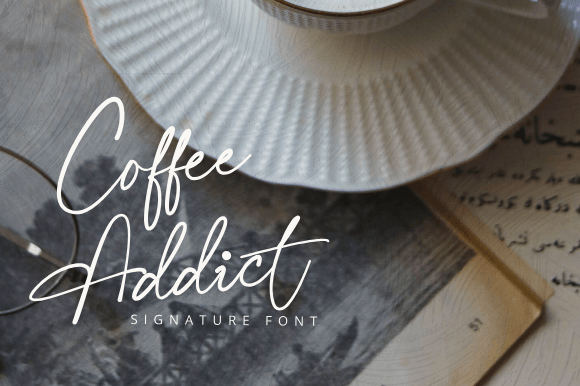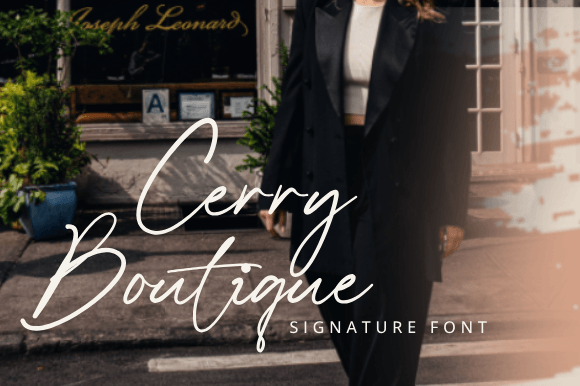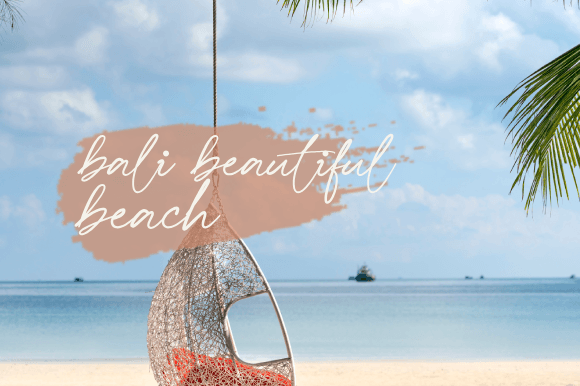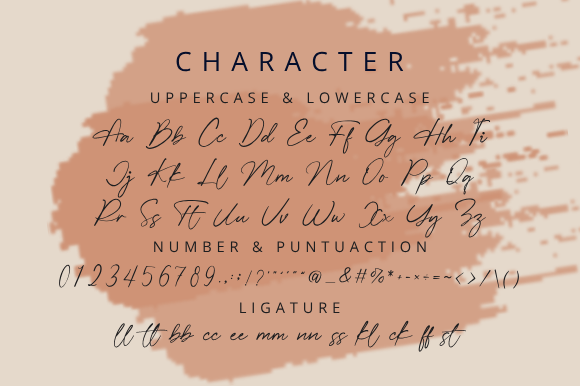
Have you ever stared at a blank canvas, unsure of where to start? The blank page, a blank slate, waiting for the perfect words to bring it to life. For designers, this moment is all too familiar. But what if you had the perfect font to set the tone for your next project? Enter the Brilliant Rose Font, a stunning combination of elegance and playfulness that’s sure to elevate your design game.
As a versatile and charming font, Brilliant Rose Font is perfect for a wide range of design projects, from formal invitations to creative branding. Its refined feel and sleek strokes make it an ideal choice for designers who want to add a touch of sophistication and romance to their work. With its harmonious balance of classic and contemporary elements, this font is sure to become a go-to choice for designers looking to make a lasting impression.
Brilliant Rose Font Key Features
- Unique Characteristics: Elegant and sophisticated design, perfect for wedding invitations, floral arrangements, and romantic themes
Designer Review: Brilliant Rose Font
Overall, I have mixed feelings about the Brilliant Rose Font. While it has some unique qualities, it also falls short in a few areas.
- The font’s elegance and sophistication make it perfect for high-end branding and design projects.
- The subtle curve of the letterforms adds a touch of femininity and whimsy, making it suitable for fashion, beauty, and lifestyle brands.
- The font’s high x-height and generous spacing make it highly legible, even at small sizes.
- The font’s limited character set may make it difficult to use for projects that require a wide range of special characters or languages.
- The font’s weight distribution can make it appear somewhat inconsistent, particularly in text blocks with multiple font weights.
- The font’s stylized nature may make it difficult to use in contexts where a more straightforward, sans-serif font is required.
While the Brilliant Rose Font has some wonderful qualities, its limitations may make it less versatile than some other fonts. However, for the right project, it can be a stunning choice that adds a touch of sophistication and elegance.
Brilliant Rose font is ideal for:
- Floral-themed designs and illustrations
- Women’s fashion and beauty branding
- Spring and summer-themed promotional materials